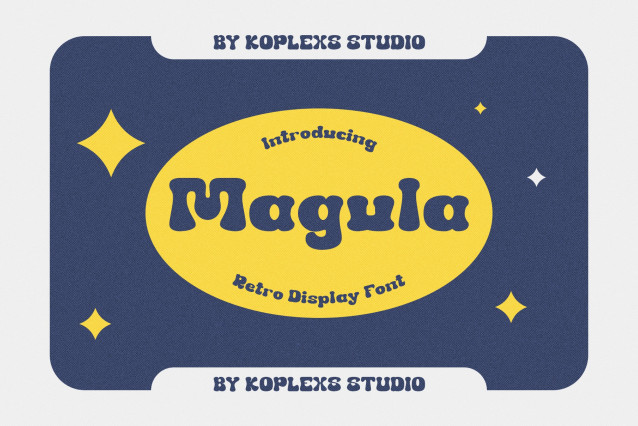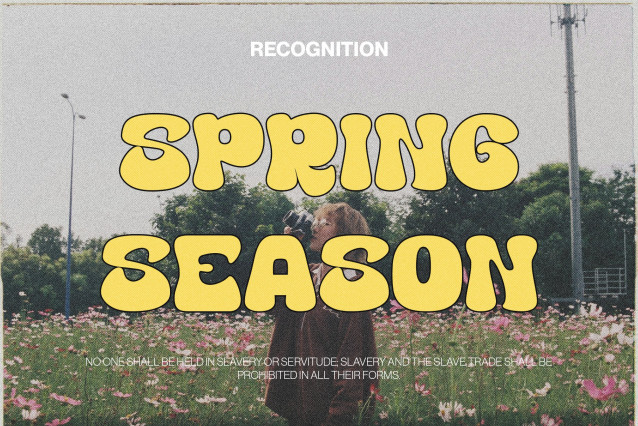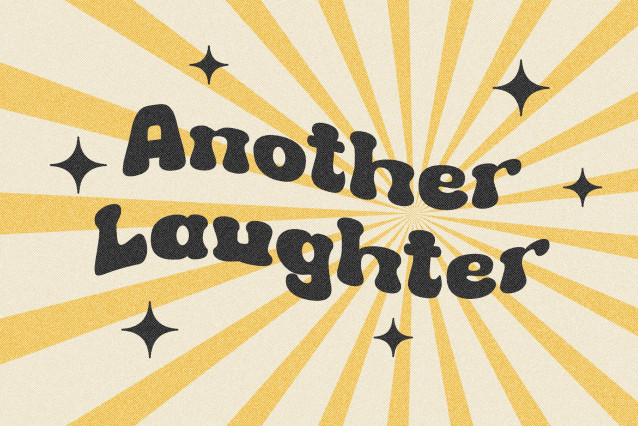
Magula Font
Megula Font is a vibrant and playful retro style font that brings nostalgic charm to modern designs. With its bold curves, smooth edges, and groovy font aesthetic, it captures the essence of 70s-inspired vintage fonts. Perfect for crafting fancy letters, fancy text, and stylish brand identities, Megula transforms any project into an eye-catching statement. Whether you’re creating bubble fancy letters, cool text fonts, or fancy writing fonts, this typeface adds warmth and creativity to every word.
Designed for versatility, Megula Font fits seamlessly across logos, packaging, posters, apparel, and social media visuals. Its fancy cursive, retro curvy font, and stylish text maker qualities make it ideal for designers, content creators, and entrepreneurs looking for cool letters design with a fancy font style. From fancy font for numbers to fancy writing and cool signature fonts, Megula is your go-to choice for projects that need both fun and elegance. Bring your retro vision to life with the timeless appeal of Megula Font today.